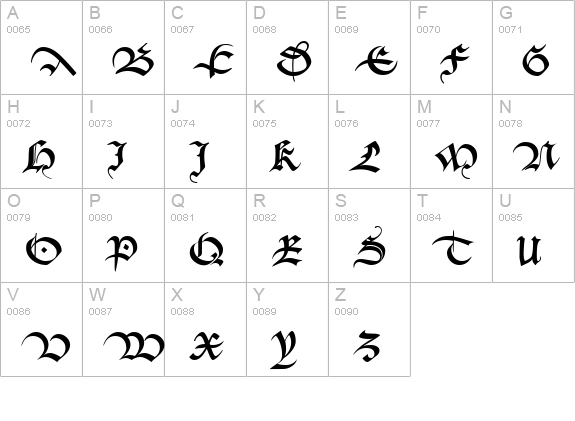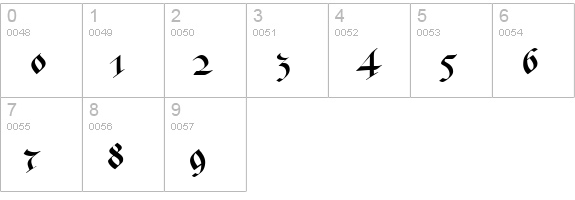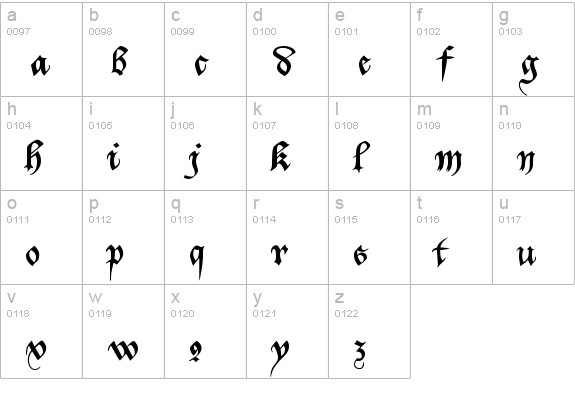
MA Bastarda1 Font Details
MA Bastarda1 is a breathtakingly beautiful font that exudes elegance and sophistication. With its intricate curves and delicate strokes, this font captures the essence of timeless beauty. It is a perfect blend of modernity and classic charm, making it suitable for a wide range of design projects. What sets MA Bastarda1 apart is not just its stunning aesthetics, but also the fact that it is free. Yes, you read that right - this incredible font is freely available to download at FontsMarket.com. Now you can add a touch of luxury to your designs without breaking the bank. Whether you're working on a logo, a website, a poster, or any other creative endeavor, MA Bastarda1 will elevate your design to new heights. Its versatility allows it to adapt to various styles and themes, making it a go-to choice for designers around the world. The attention to detail in this font is evident in every letterform. Each curve and line has been meticulously crafted to create a harmonious visual experience. The result is a font that is not only visually pleasing but also easy to read. MA Bastarda1 is perfect for those who seek to make a lasting impression. Its graceful presence on any project will captivate viewers and leave them in awe. Whether used for headlines, body text, or even as a decorative element, this font will make a statement and leave a lasting impression. So why wait? Take advantage of this incredible opportunity to download MA Bastarda1 for free at FontsMarket.com. Let this font be the secret weapon in your design arsenal, bringing your creations to life with its unparalleled beauty and charm.